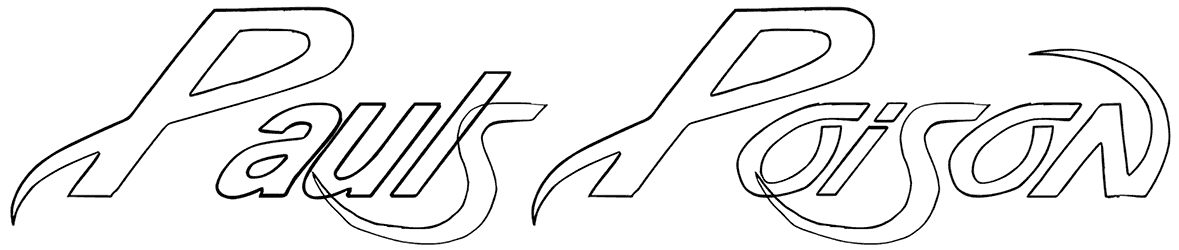
Pauls Poison Font
Like other outline fonts, Pauls Poison could be a great choice for making eye-catching magic stores, flyers, TV shows, and more things. Even if this fancy font is a little bit incomprehensible, its stunning, eerie style…
Designed byTattoo Paul
Like other outline fonts, Pauls Poison could be a great choice for making eye-catching magic stores, flyers, TV shows, and more things. Even if this fancy font is a little bit incomprehensible, its stunning, eerie style will make your work stand out.